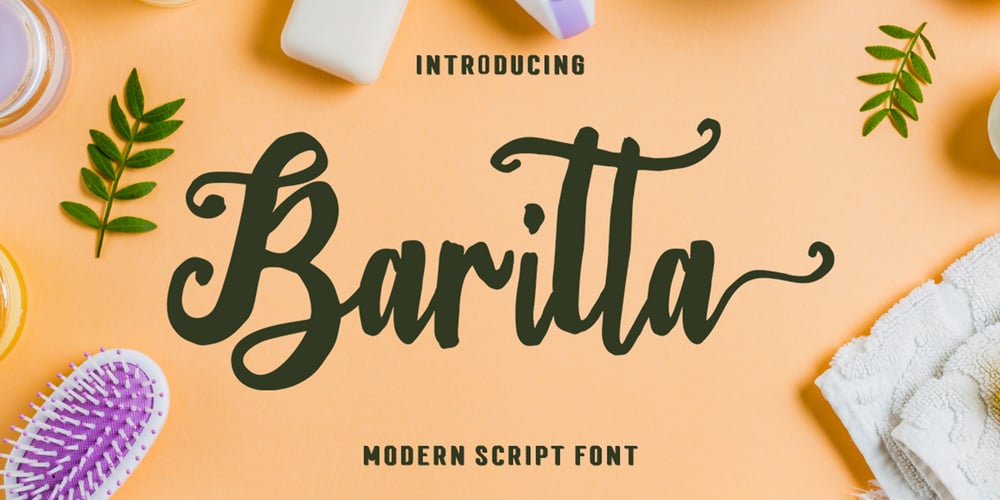
Baritta Script Font Family was designed by Zaki Muhammad and published by madjack.font. Baritta Script contains 1 styles and family package options. Baritta is a modern script font made with brushes and ink, thick and irregular lines. It contains the complete set of lowercase, uppercase, alternative, binder, punctuation, numbers, and multilingual support. Get inspiration from the preview above. Baritta is perfect for use in watercolor designs or bold handwriting styles, such as blog headings, branding, t-shirts, weddings, social media, product design, stationery, advertisements, clothing, cover books, business cards, greeting cards, branding, merchandise, invitations and handmade quotes and more. Baritta features alternative OpenType styles, binders and international support for most Western Languages included. To enable the OpenType Stylistic alternative, you need a program that supports OpenType features such as Adobe Illustrator CS, Adobe Indesign & CorelDraw X6-X7, Microsoft Word 2010 or newer versions. How to access all alternative characters using Adobe Illustrator: https://www.youtube.com/watch?v=XzwjMkbB-wQ Baritta is coded with Unicode PUA, which allows full access to all additional characters without having special design software. Mac users can use the Font Book, and Windows users can use the Character Map to view and copy one of the additional characters to paste into your favorite text editor / application. How to access all alternative characters, using Windows Character Map with Photoshop: https://www.youtube.com/watch?v=Go9vacoYmBw If you need help or have questions, please let me know. I am happy to help 🙂 Thank you & Happy Designing!